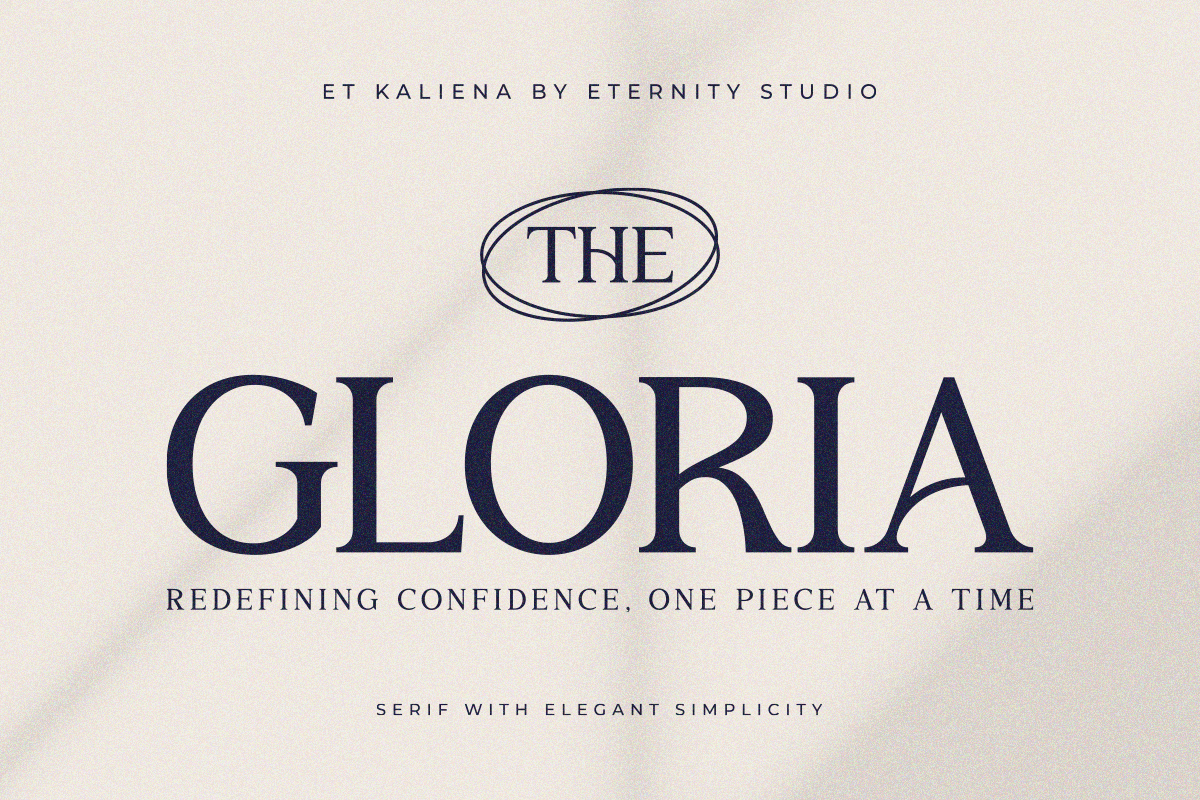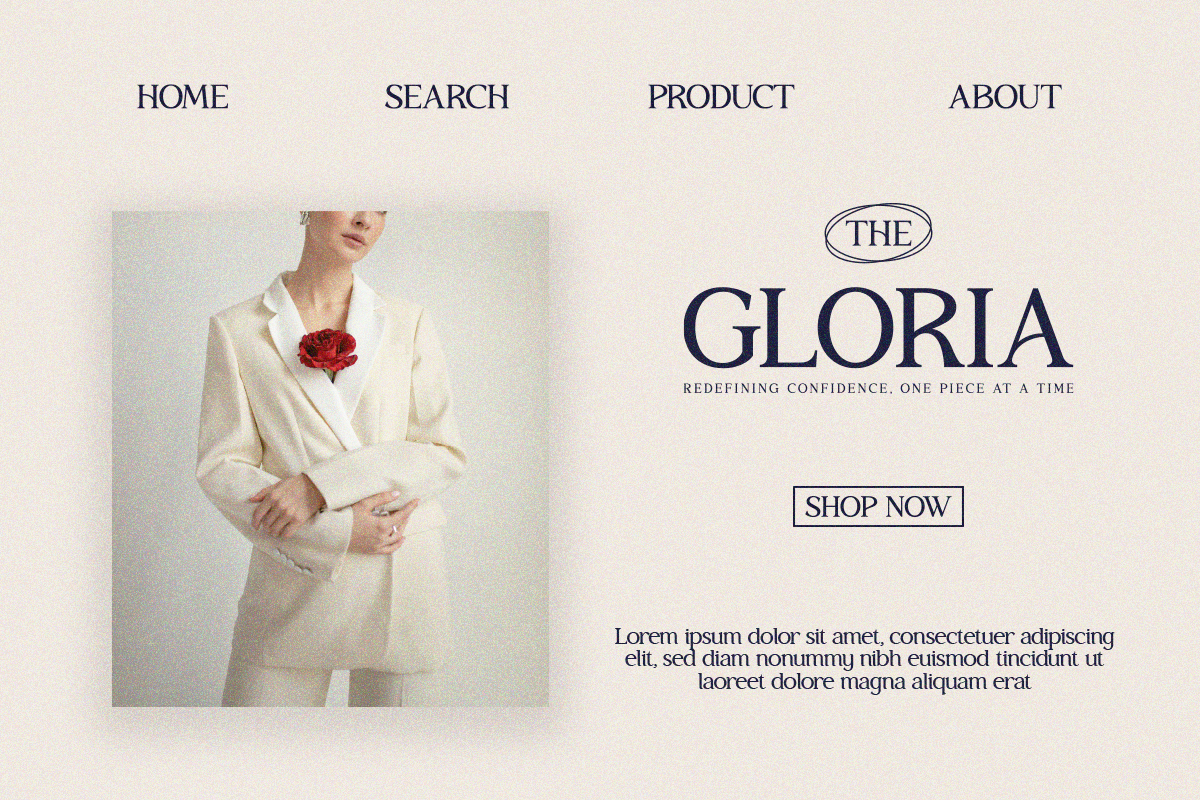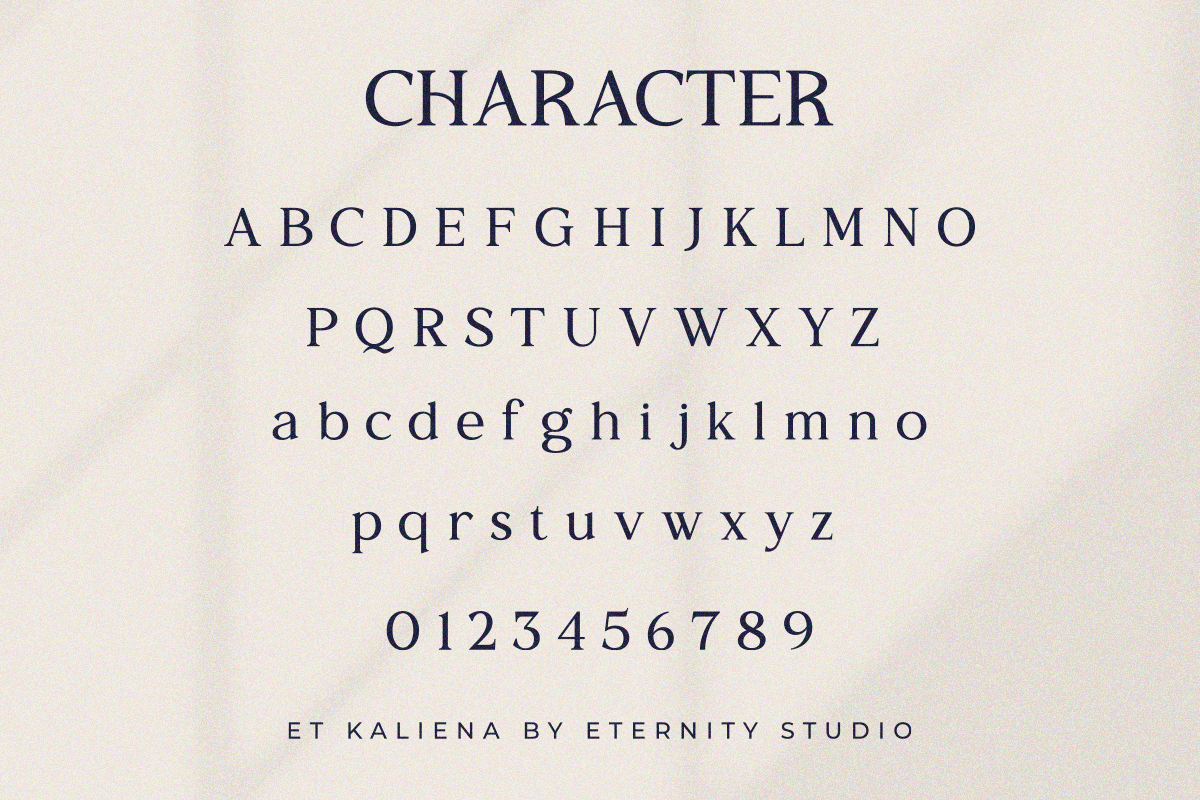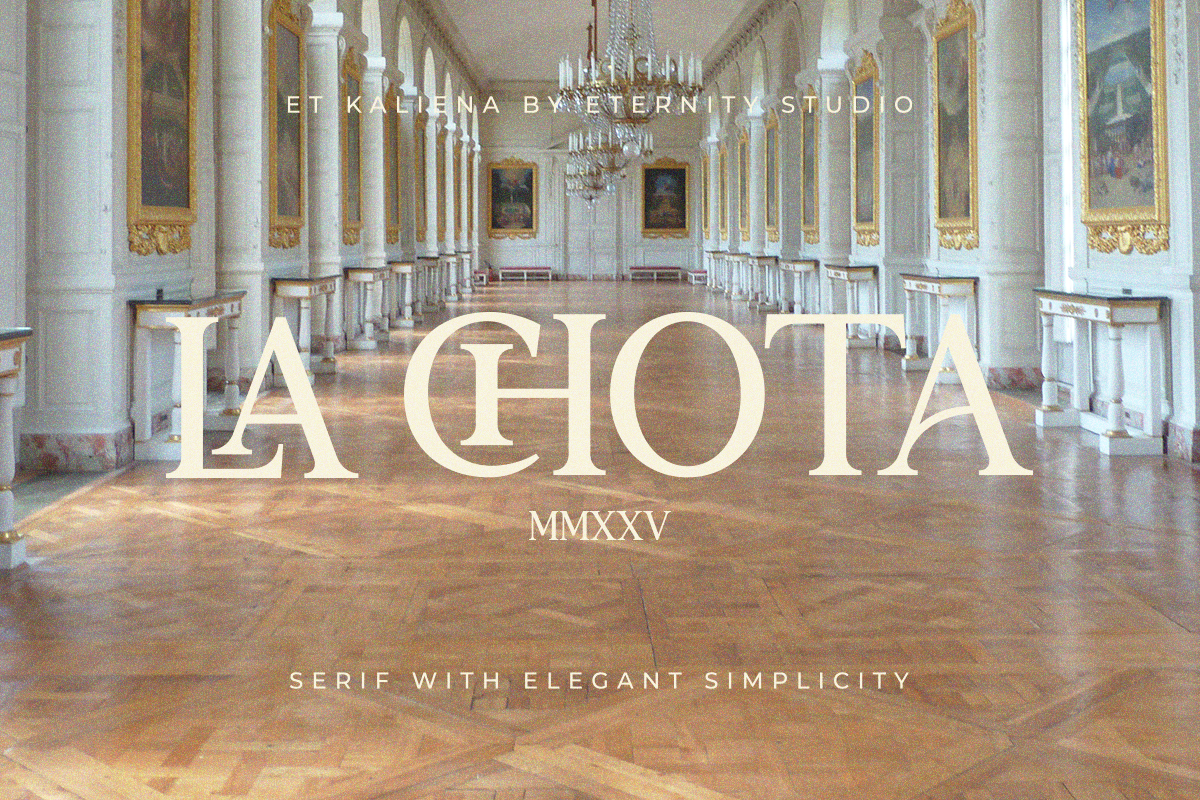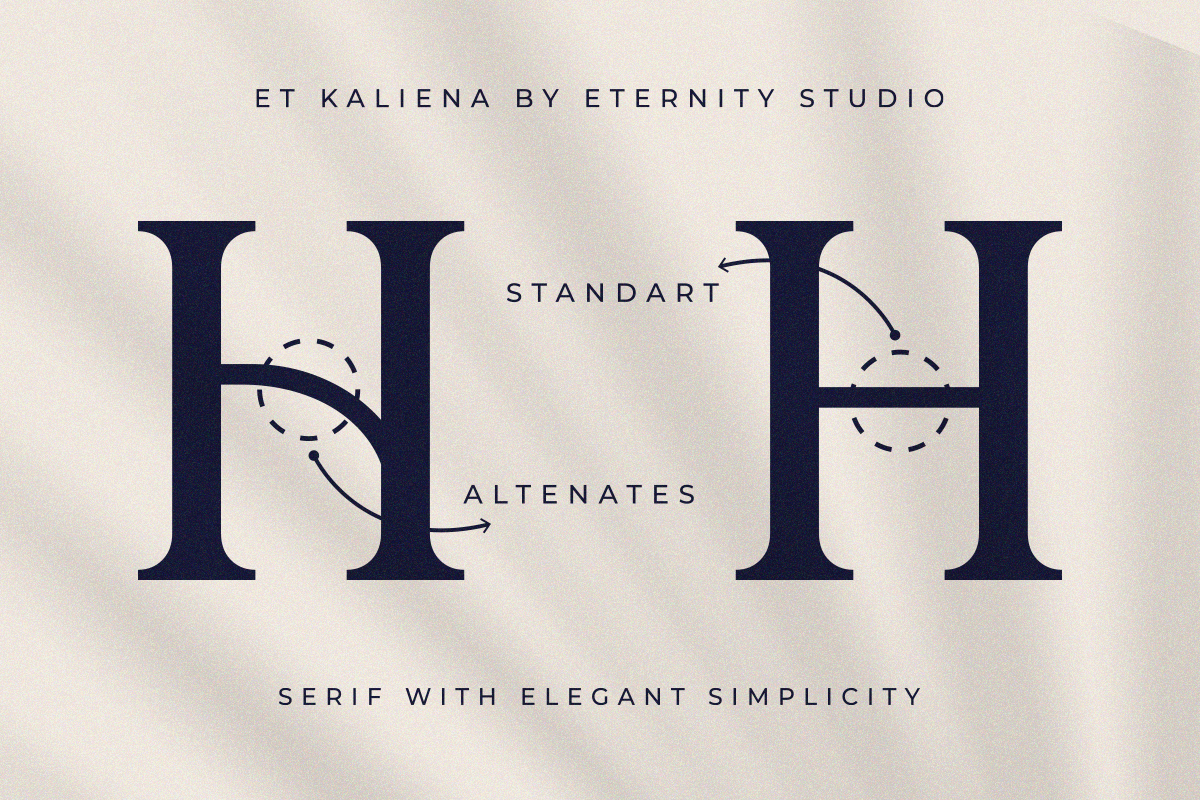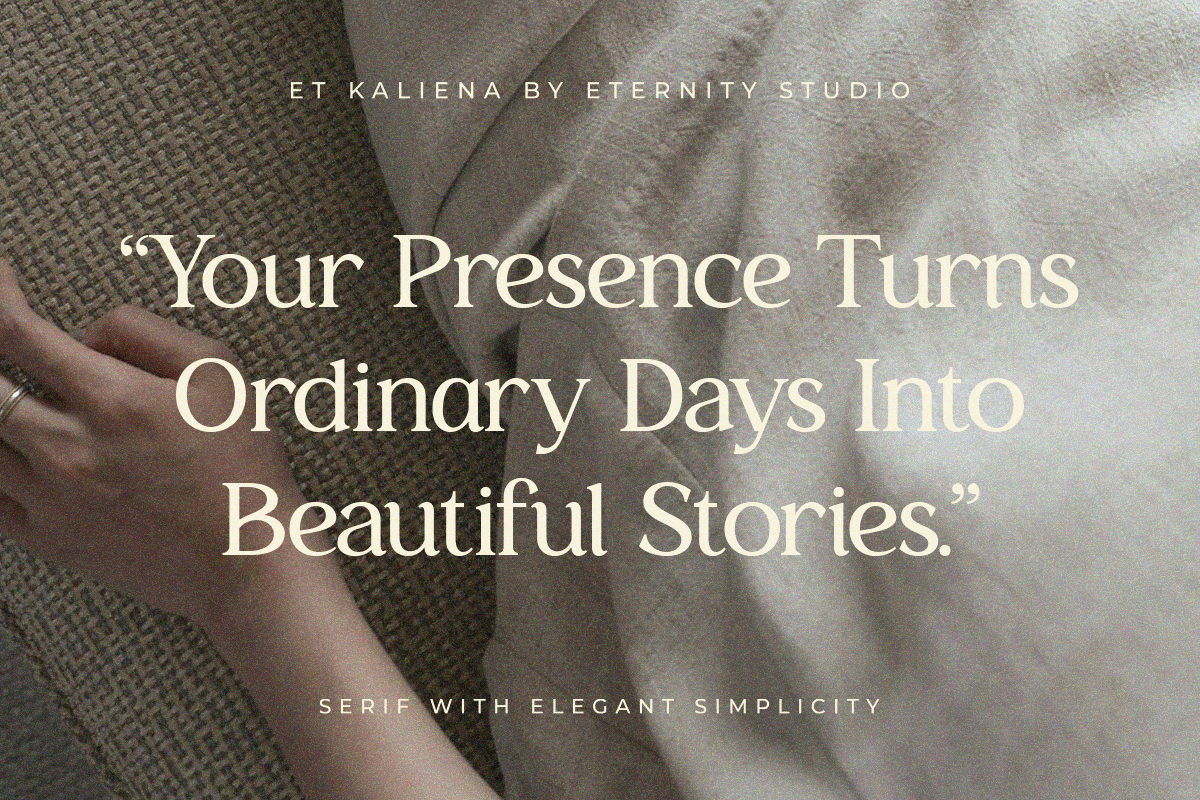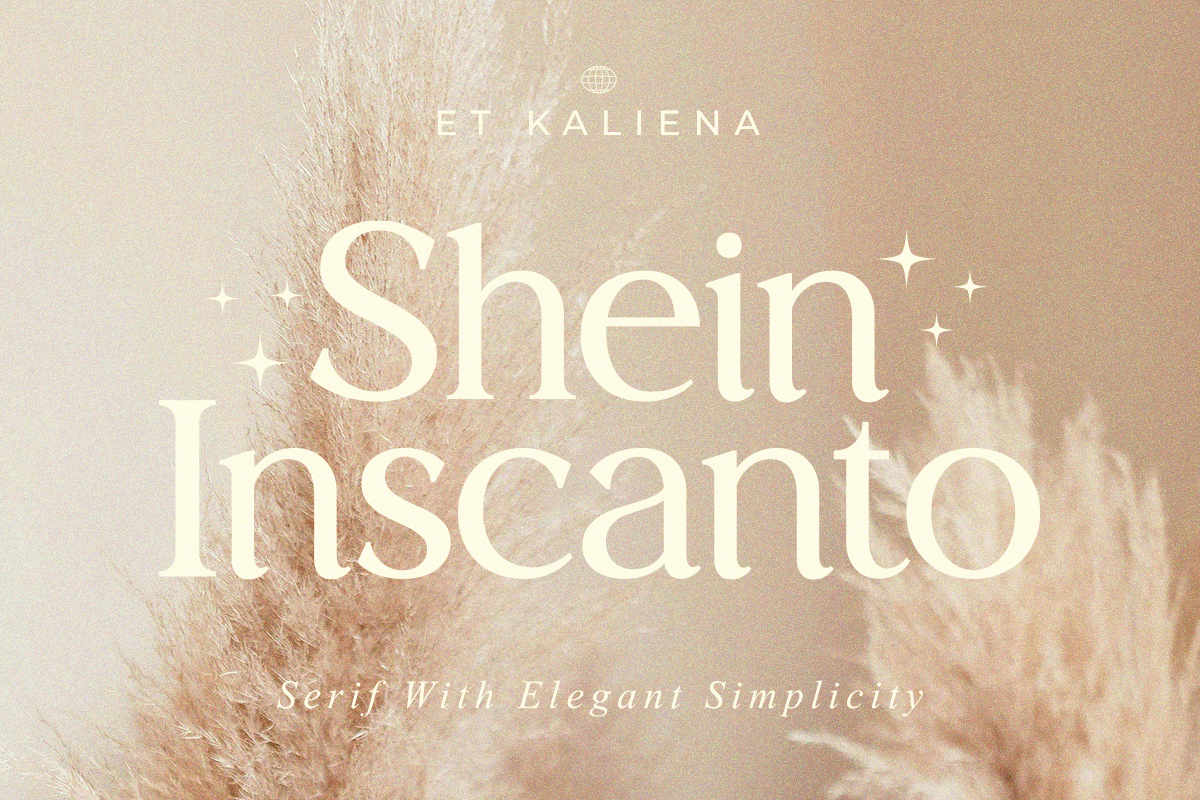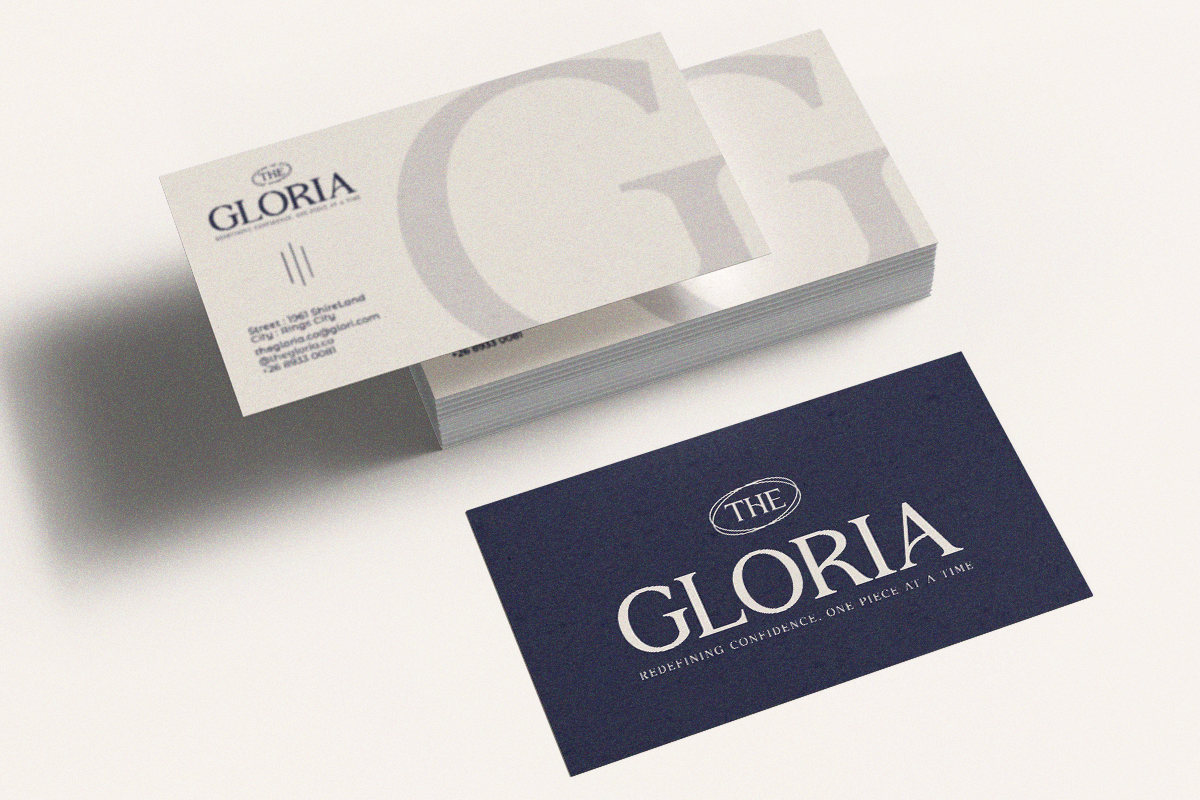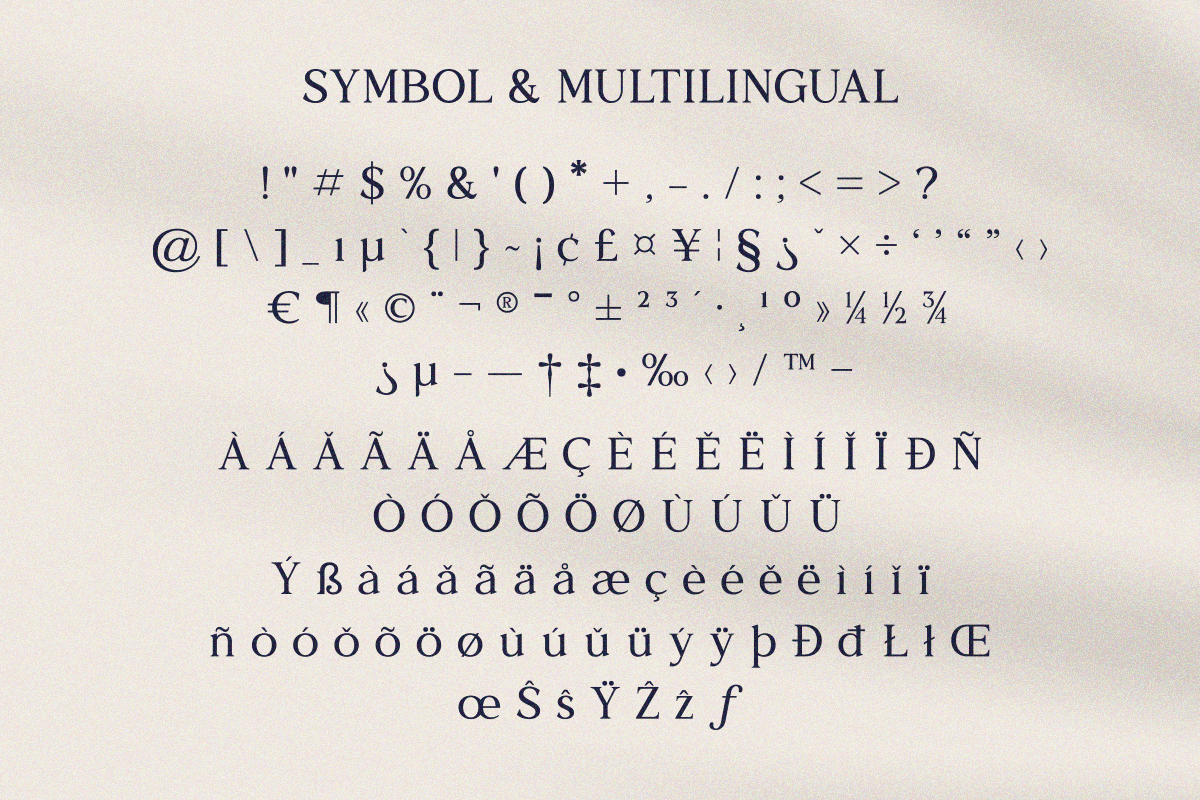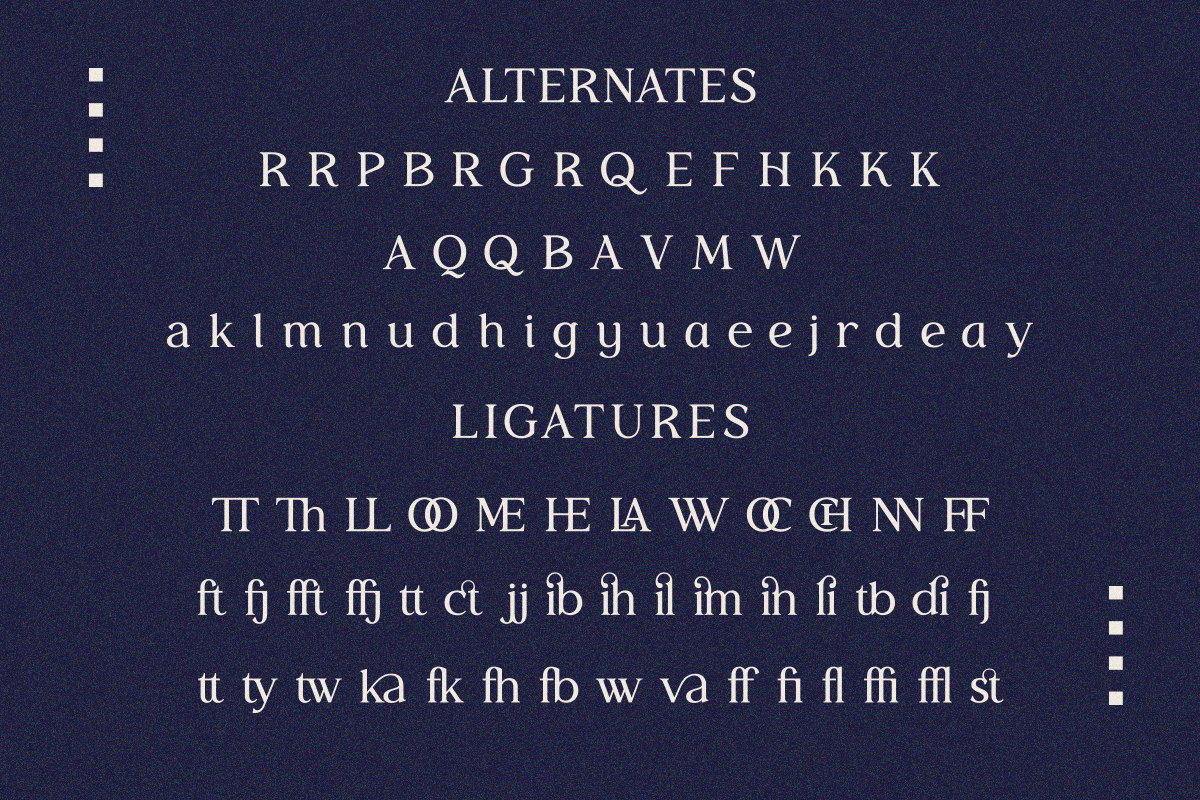
ET Kaliena - Serif Elegant Simplicit
ET Kaliena is a timeless and luxurious serif font designed for high-end branding and elegant design projects. Its clean lines and balanced forms deliver an aura of sophisticated simplicity and professionalism.
✨ Highlights:
Elegant & Clean Aesthetic: Perfect for conveying luxury and trust.
Alternate Characters: Access a selection of stylistic alternates to customize your headlines and logos, adding a unique and delicate touch.
High Readability: Crafted for clarity in both display and body text.
Versatile Use: Ideal for logos, magazines, packaging, and wedding stationery.
💡 Ideal For: Branding, Logo Design, Editorial Layouts, Luxury Goods Packaging, and Formal Invitations.